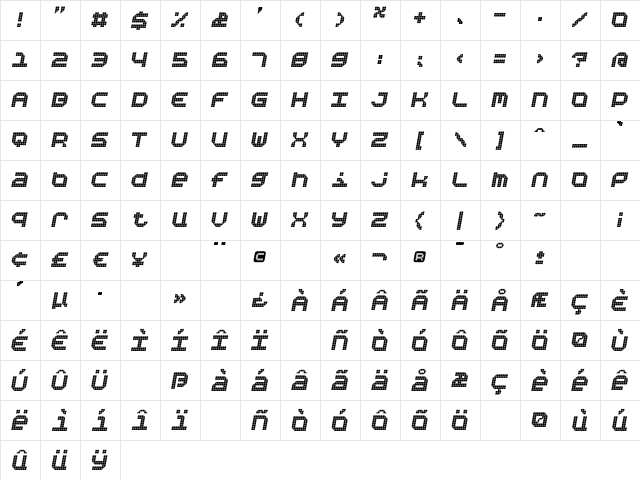
BpositiveItalic Regular Free Font
BpositiveItalic Regular
Design Context for BpositiveItalic
BpositiveItalic is a composed and adaptable typeface that performs quietly and consistently across a wide range of design contexts. The slanted form adds forward momentum and visual energy.
Pro Tip: Use BpositiveItalic for emphasis, pull quotes, and subheadings where its slanted energy can add rhythm to the layout.